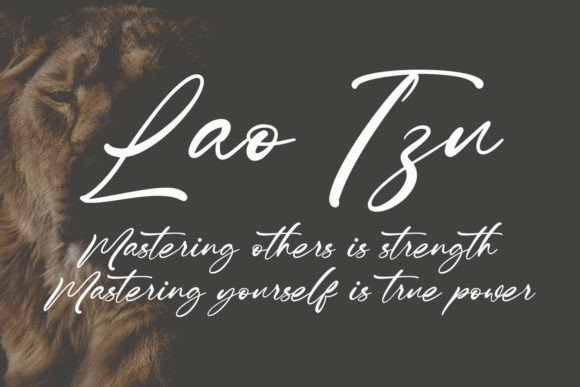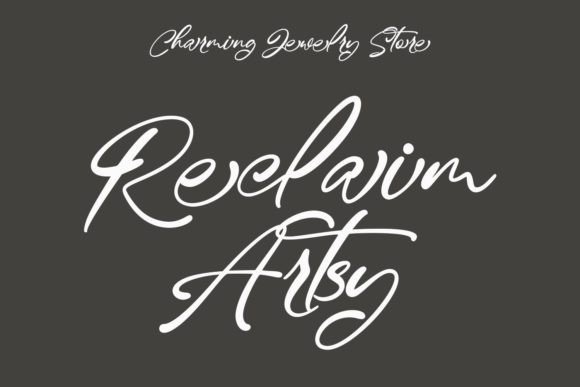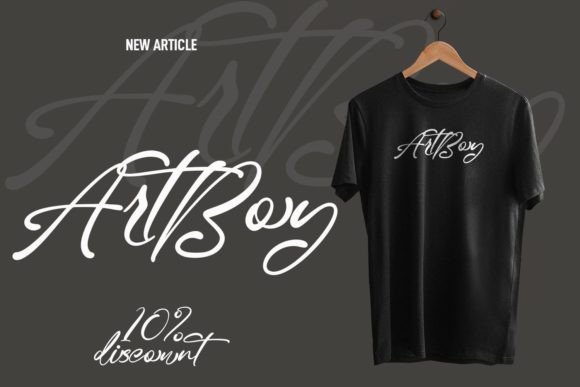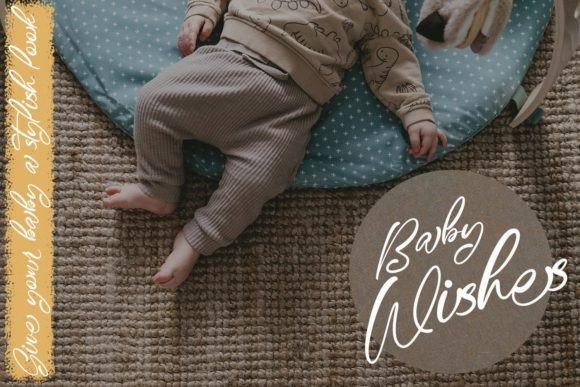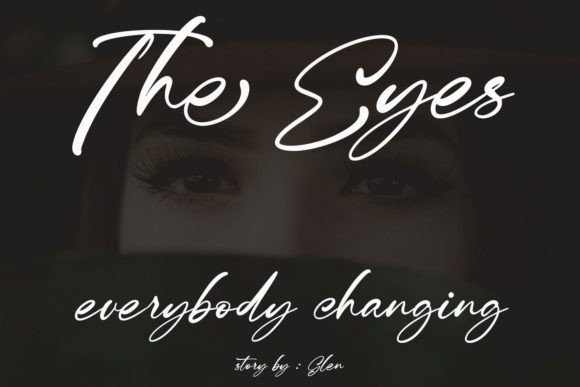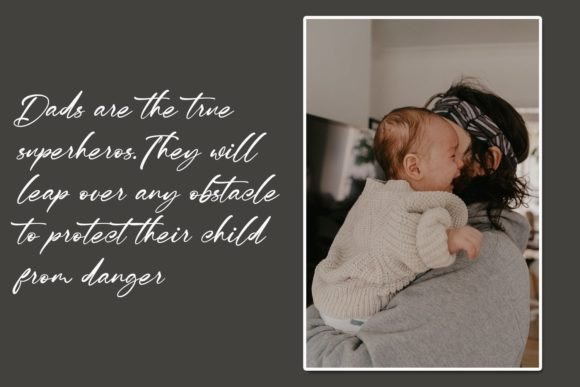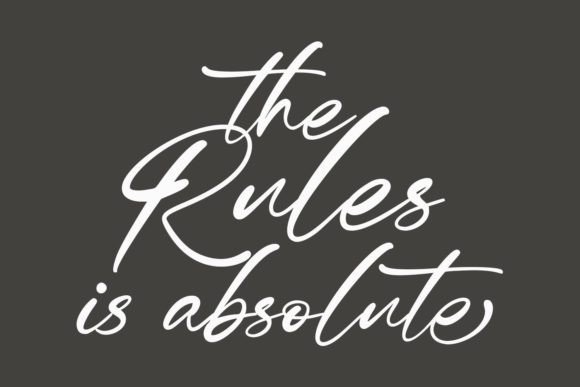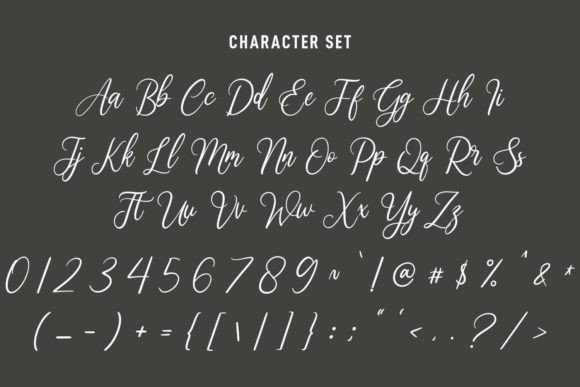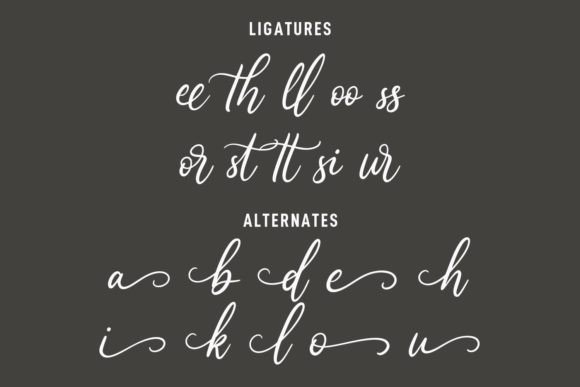
Fasttelyo Font
About Fasttelyo Font
Fasttelyo stands out as an ink-inspired signature script font, characterized by its light contrast strokes, playful characters, and the added flair of ligatures and alternates for enhanced creative possibilities. This font is exceptionally well-suited for a range of design applications, making it a versatile choice for logo design, social media graphics, movie titles, books titles, short text, long text, and as a complement to sans or serif fonts for secondary text.
The light contrast strokes in Fasttelyo contribute to a dynamic and modern appearance, ensuring that your designs exude a contemporary and stylish vibe. This feature makes the font particularly effective for logo design, where its signature script style adds a touch of individuality and authenticity to your brand identity.
In social media graphics, Fasttelyo’s fun characters inject a sense of playfulness and creativity into your posts. Whether you’re creating content for Instagram, Facebook, or other platforms, the font’s distinctive style adds a visual appeal that captures attention and engages your audience.
Movie titles benefit from Fasttelyo’s unique and eye-catching design. The script font brings a cinematic quality to titles, creating a memorable and stylish impression. Its versatility allows it to adapt to different genres, adding a personalized touch to movie credits and promotional materials.
For books titles, Fasttelyo offers a balance of readability and artistic flair. The font’s script style adds character to book covers and titles, setting a tone that aligns with the theme or genre of the book. Whether used in fiction or non-fiction contexts, Fasttelyo adds a touch of creativity to book design.
The inclusion of ligatures and alternates in Fasttelyo opens up a world of creative possibilities. This feature allows for variations in character combinations, enhancing the overall aesthetic of your designs. It’s especially valuable for creating visually appealing and customized typographic elements.
Fasttelyo proves its versatility in handling both short and long text. Whether you’re designing a poster with concise messaging or working on extensive textual content, the font maintains readability while infusing a sense of style into the overall composition.
When used as secondary text alongside sans or serif fonts, Fasttelyo adds a complementary touch that enhances visual interest. This makes it a valuable asset for creating diverse and harmonious typographic combinations in your design projects.
In summary, Fasttelyo is a versatile and creative signature script font designed to make a statement in various design contexts. Whether you’re crafting logos, social media graphics, movie titles, books titles, or incorporating it into your typography toolkit, Fasttelyo offers the flexibility and artistic flair needed to make stunning and engaging designs. Embrace the unique characteristics of Fasttelyo to elevate your creative work and captivate your audience with its playful and modern charm.